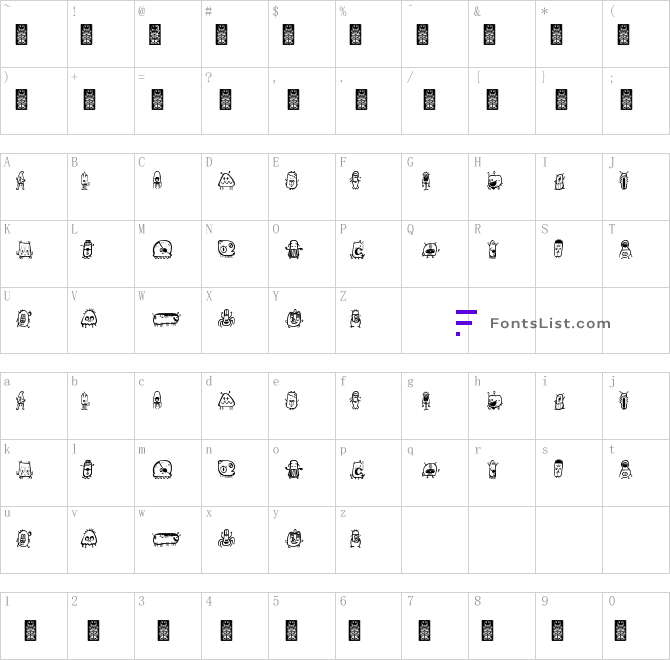
- Font Name:aliendco
aliendco-copy-1-.ttf is a very beautiful artistic font, aliendco-copy-1-.ttf is widely used in the design and printing of various books and pictures,aliendco-copy-1-.ttf has a strong visual impact,aliendco-copy-1-.ttf is a commonly used font in newspapers, magazines and books, and is used in posters, e-commerce Poster design, store design, logo design, font design and other fields.aliendco-copy-1-.